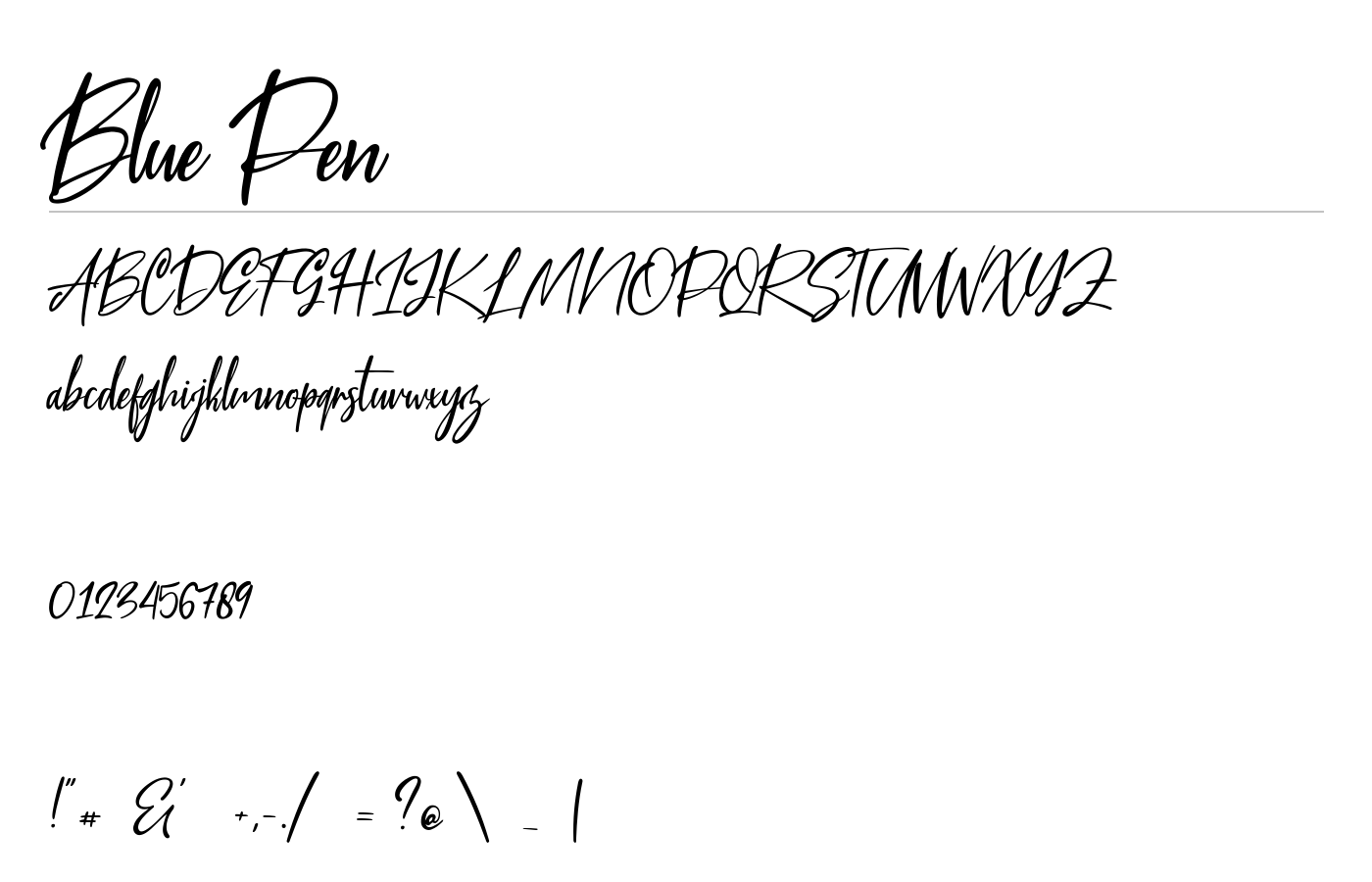
Blue Pen is a lively, handwritten script font with a casual yet elegant feel, featuring a smooth, flowing stroke that mimics natural penmanship. Its tall, slender letterforms and slightly varied stroke width give it a fresh, personal touch, making it ideal for branding, invitations, and expressive headlines where a friendly and approachable style is desired.
Blue Pen Font
About Blue Pen Font
| Font family | Blue Pen Font |
| Designer | Suzuran |